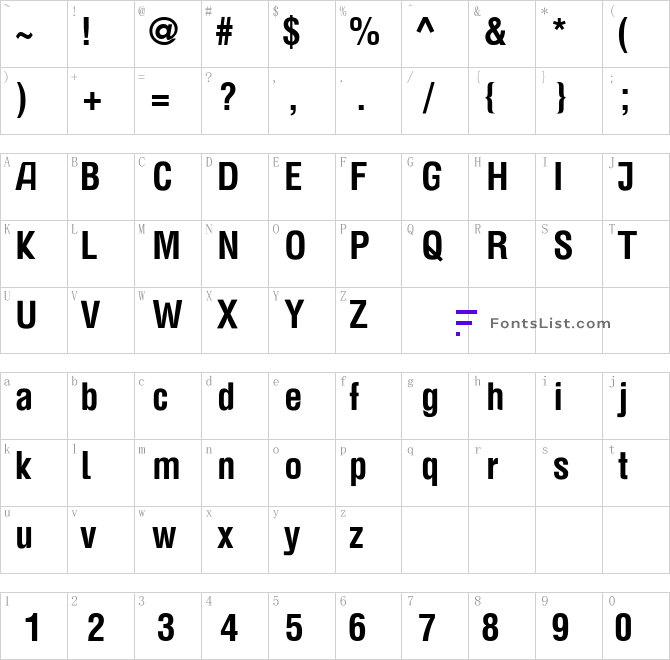
- Font Name:BDP FOX
BDP-FOX.ttf is a very beautiful artistic font, BDP-FOX.ttf is widely used in the design and printing of various books and pictures,BDP-FOX.ttf has a strong visual impact,BDP-FOX.ttf is a commonly used font in newspapers, magazines and books, and is used in posters, e-commerce Poster design, store design, logo design, font design and other fields.BDP-FOX.